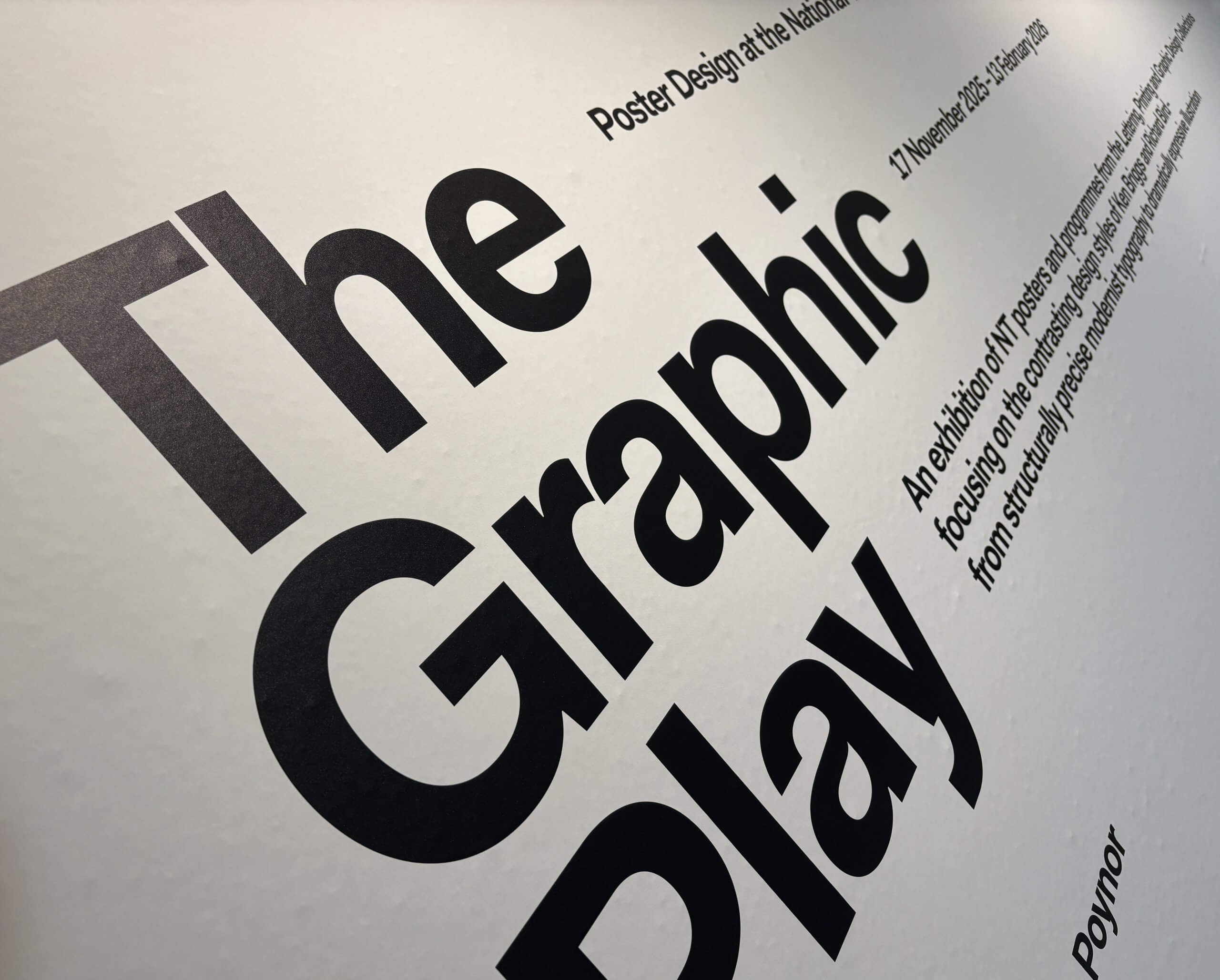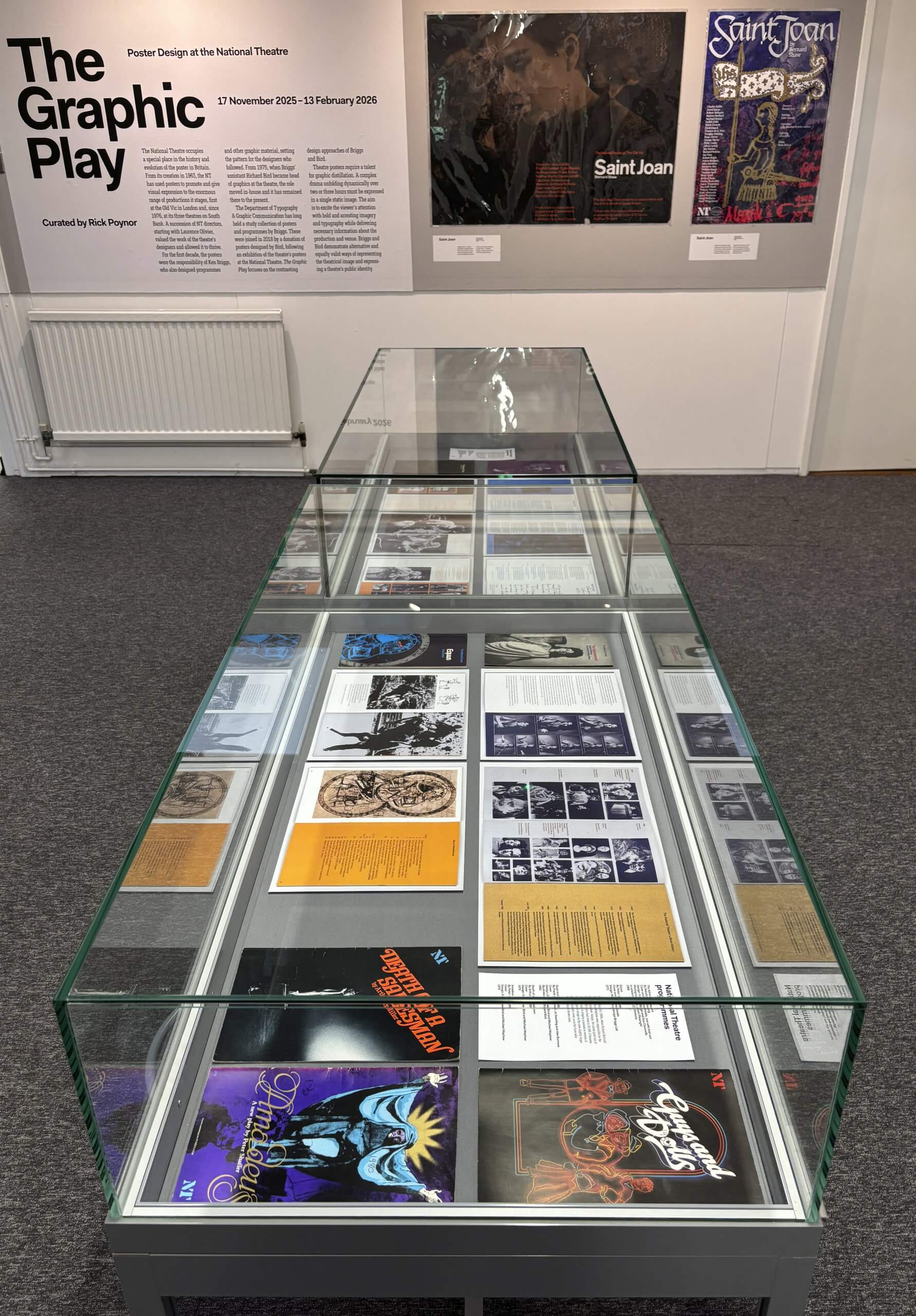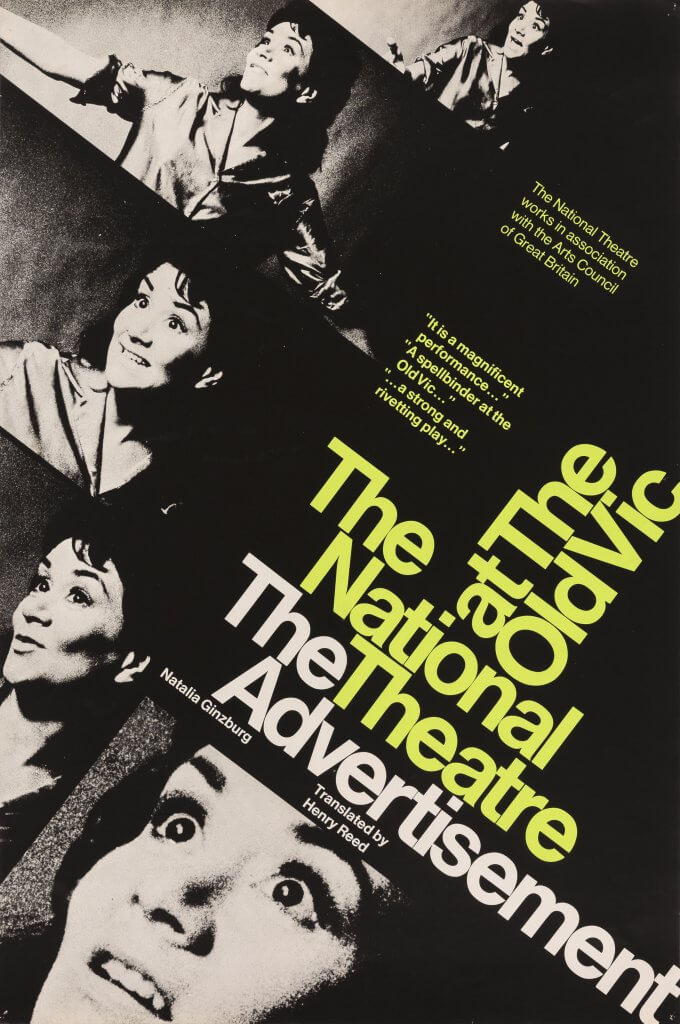
An exhibition of National Theatre posters and programmes from the Lettering, Printing and Graphic Design Collections that focuses on the contrasting design styles of Ken Briggs and Richard Bird – from structurally precise modernist typography to dramatically expressive illustration.
Curated by Rick Poynor
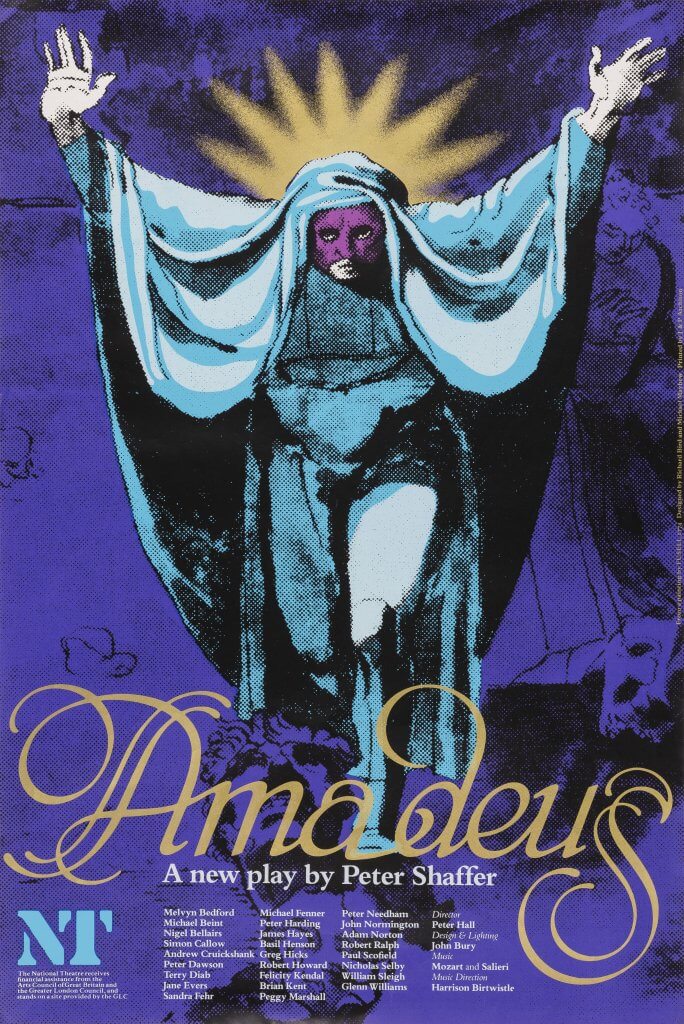
About the exhibition
Theatre posters require a gift for graphic distillation. A complex drama unfolding dynamically over two or three hours must be expressed in a single static image. The aim is to excite the viewer’s attention with bold and arresting imagery and typography while delivering necessary information about the production and venue.
The National Theatre has been at the centre of British cultural life since the early 1960s. Poster design at the NT has a history of remarkable commitment and consistency. In the theatre’s early years – the focus of this exhibition – two designers, Ken Briggs (1931–2013) and Richard Bird (1948–93), each held the position of poster designer for more than a decade. Their styles represent alternative ways of interpreting the theatrical image and expressing the identity of the theatre itself. Briggs’ work, influenced by the Swiss Style of typography, is structurally precise and the poster is conceived as a document of the performance. Bird was a versatile image-maker and lettering artist and his later conception of the poster’s purpose is much more illustrative and subjective. Both designers enjoyed considerable freedom to determine the theatre’s graphic identity and direction.
The exhibition, drawn from an extensive group of National Theatre posters in the Lettering, Printing and Graphic Design Collections, investigates and contrasts these two perspectives with a rich selection of examples. The posters are supplemented by a selection of elaborate NT programmes, which were carefully edited and inventively designed to support the theatregoer’s experience of the play.